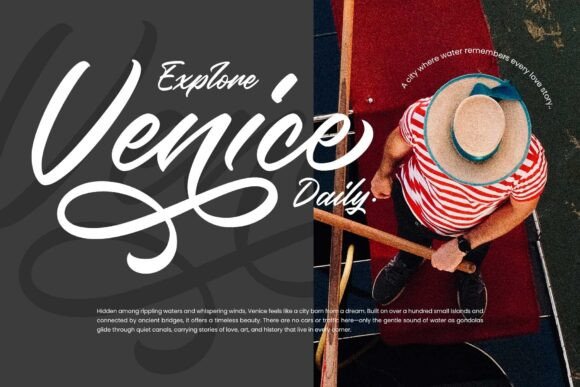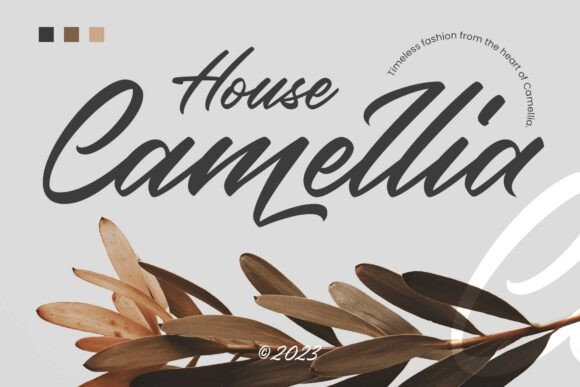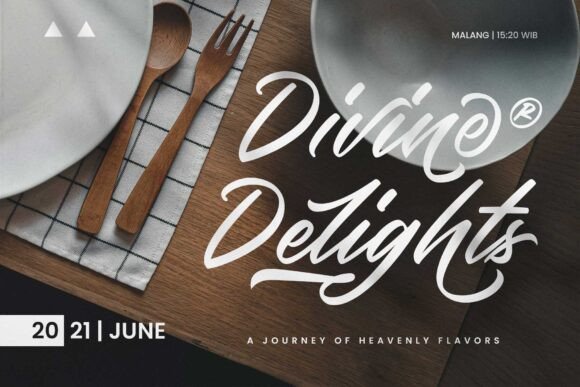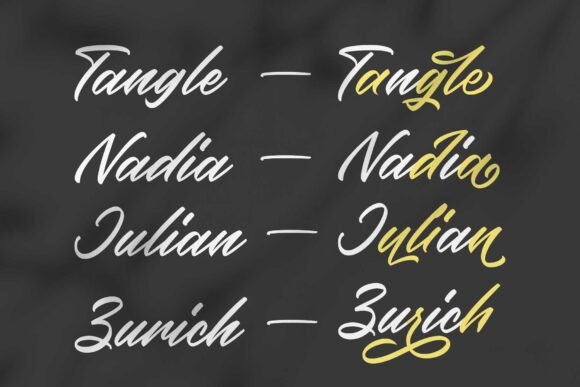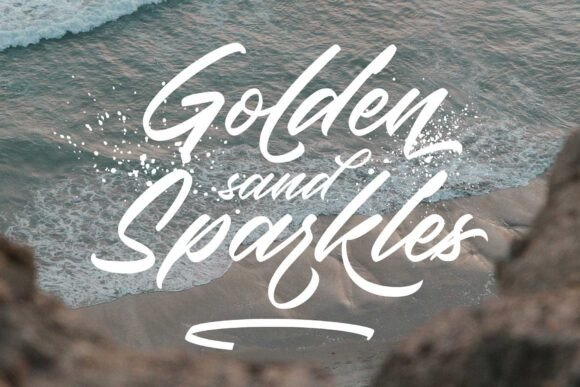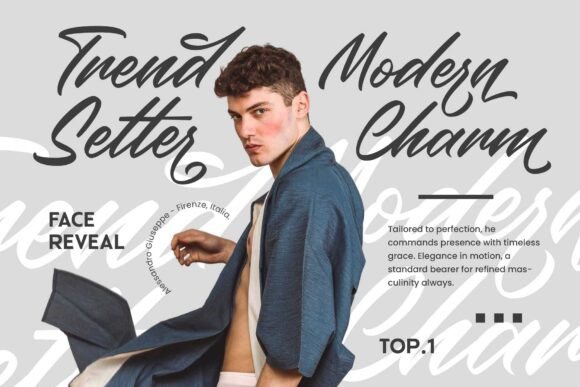
Introduction to Rainylock Font
Rainylock is a playful brush font, crafted in a quick, handwritten style and enhanced with a variety of swashes to add more typographic flair.
It includes 14 sets of swashes that you can play with This font is simple, clean, bold, and playfulโperfect for a wide range of uses such as logos, logotypes, cards, weddings, posters, motion graphics, headlines, and more.